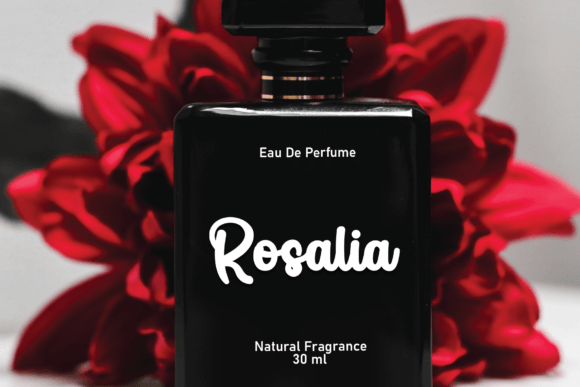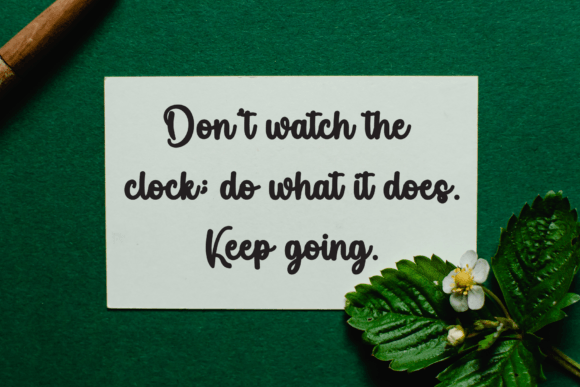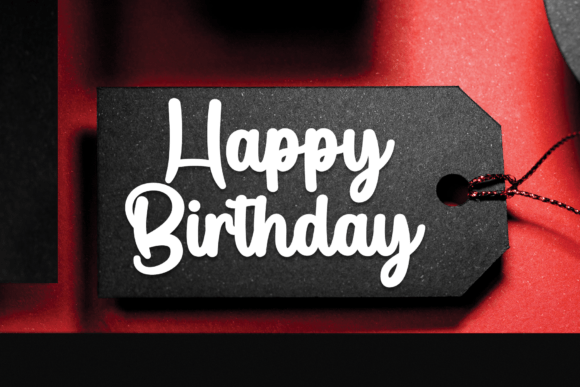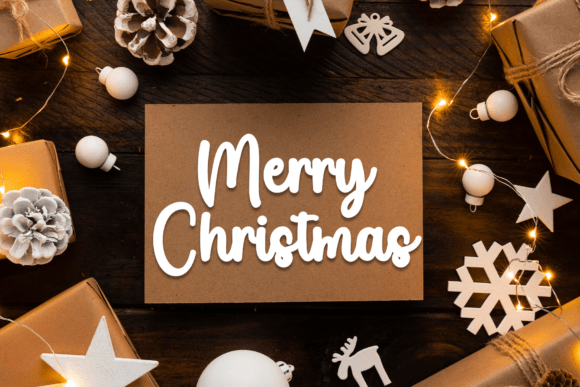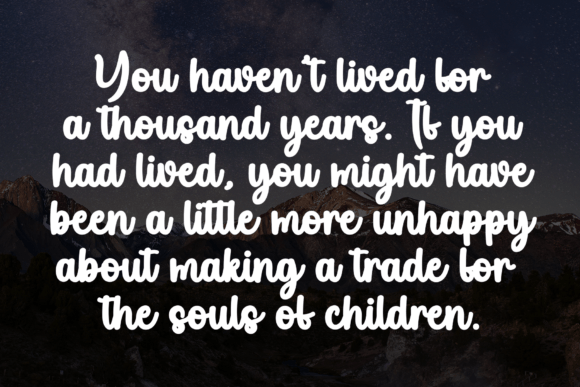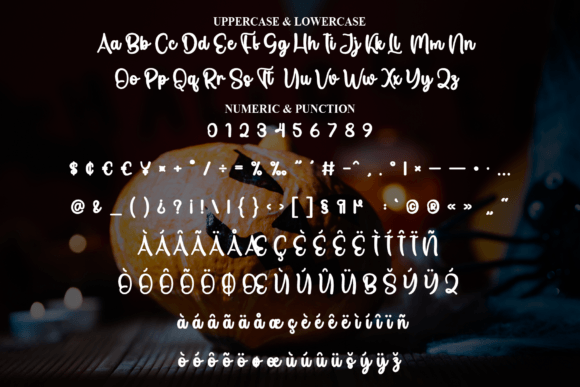
Introduction to Pumpkin Midnight Font
Pumpkin Midnight is a bold, handwritten font that has a warm and cozy feel.
Its playful, flowing letters look like they were written with a brush, making it perfect for autumn-themed designs and personal touches .
Key Features of Pumpkin Midnight Font
Why Choose Pumpkin Midnight Font?
Pumpkin Midnight Font offers exceptional quality and versatility, making it a valuable addition to your design toolkit. Whether you’re creating for personal projects or commercial use, Pumpkin Midnight Font delivers professional results.